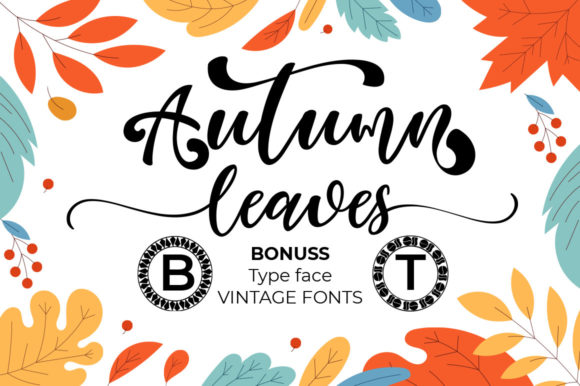
The Magic of Autumn Leaves Font: A Designer’s Delight
I’ll never forget the time I was working on a project for a cozy fall-themed cafe, and I just couldn’t find the right font to capture the warmth and playfulness of the season. The client wanted something that would make their menus, flyers, and social media posts stand out, but I was stuck. That was until I stumbled upon the Autumn Leaves font. It’s a lovely script font that features charming, playful characters that seem to dance along the baseline. In this article, I’ll share my experience with this beautiful font, its features, and how to make the most of it in your designs.
An Honest Review of Autumn Leaves Font
• ✨ Playful and charming characters that add a touch of whimsy to any design
• ✅ PUA encoded for easy access to all glyphs and swashes
• 💃 Dance along the baseline for a lively, dynamic feel
• 📚 Perfect for a variety of projects, from fall-themed designs to everyday creative endeavors
While I adore the Autumn Leaves font, there are a few things to keep in mind:
• ⚠️ May not be suitable for very formal or professional designs, as it has a playful, informal feel
• 🤔 Some characters may require adjusting to get the perfect spacing and alignment
The Backstory of Autumn Leaves Font
While I couldn’t find any information on the actual designer of Autumn Leaves, I like to imagine that it was created by a designer who loves the magic of fall. Perhaps they were inspired by the vibrant colors and playful atmosphere of the season, and wanted to capture that essence in a font. Whatever the inspiration, Autumn Leaves is a beautiful and charming font that’s sure to delight designers and crafters alike.